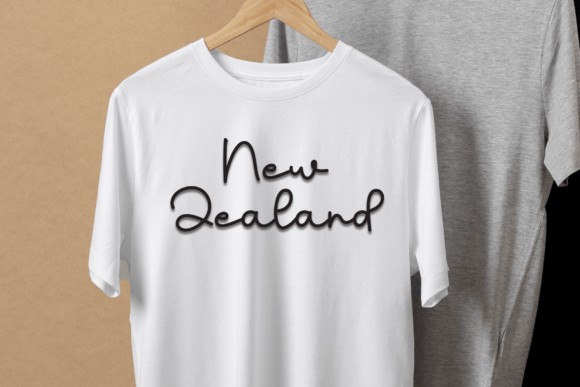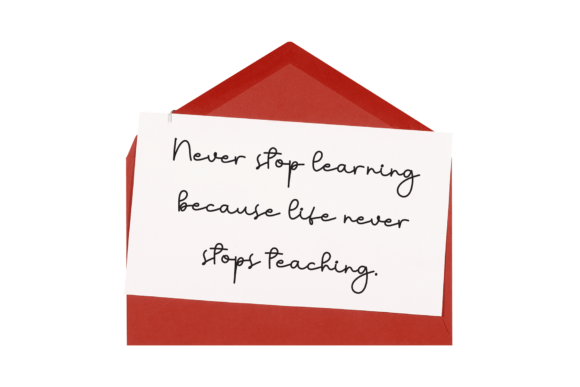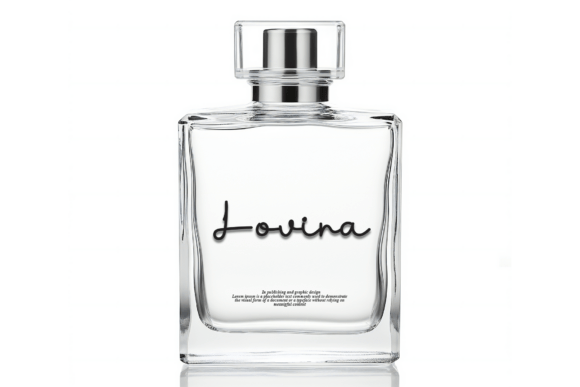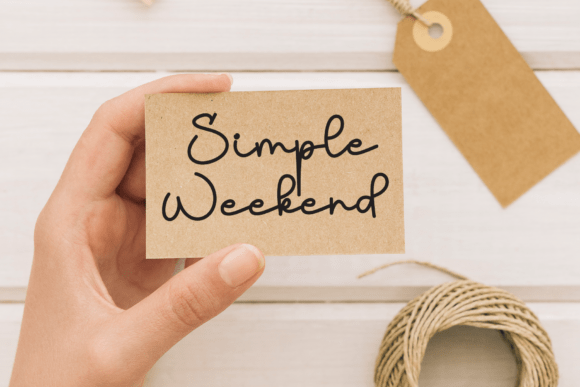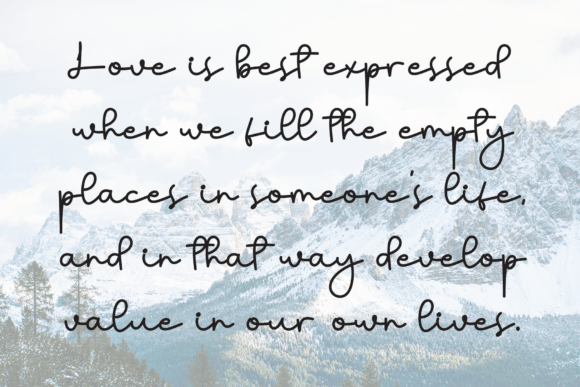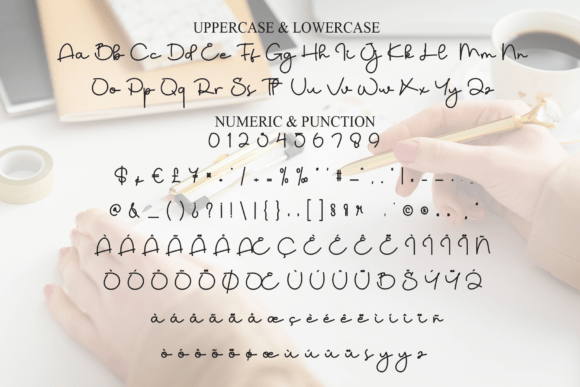
Introducing Charming Signature: The Perfect Font for Adding a Touch of Personality
In the world of typography, a font can make all the difference in conveying a message, expressing a brand’s identity, or simply adding a personal touch to a design. If you’re looking for a font that exudes a sense of casual elegance and modern sophistication, look no further than Charming Signature. This smooth and stylish handwritten font is perfect for designers, crafters, and anyone looking to add a dash of personality to their creations.
What is Charming Signature?
Charming Signature is a beautifully crafted handwritten font that blends a casual script feel with a modern flair. Its smooth, flowing lines and curves create a sense of fluidity and movement, making it perfect for adding a touch of personality to a wide range of designs. Whether you’re working on a branding project, creating a logo, designing a greeting card, or simply writing a personal note, Charming Signature is the perfect choice.
Key Features of Charming Signature
- Smooth and stylish handwritten look: Charming Signature boasts a beautiful, handwritten look that’s perfect for adding a personal touch to your designs.
- Casual script feel: This font has a relaxed, casual feel that’s perfect for creating a sense of friendliness and approachability.
- Modern flair: Charming Signature also has a modern edge, making it perfect for designers who want to create a sense of sophistication and elegance.
- Professional finesse: Despite its casual feel, Charming Signature has a level of professionalism that’s perfect for use in branding, logos, and other high-end designs.
Uses for Charming Signature
So, what can you use Charming Signature for? The possibilities are endless! Here are a few ideas to get you started:
- Branding and logos: Add a touch of personality to your brand’s identity with Charming Signature.
- Greeting cards and invitations: Create beautiful, one-of-a-kind greeting cards and invitations that will make your recipients feel special.
- Personal notes and letters: Add a touch of elegance to your personal correspondence with Charming Signature.
- Stationery and paper crafts: Use Charming Signature to create beautiful stationery, paper crafts, and other DIY projects.
Why Choose Charming Signature?
So, why should you choose Charming Signature over other fonts? Here are a few reasons:
- Unique and versatile: Charming Signature is a unique and versatile font that can be used in a wide range of designs and applications.
- Elegant and sophisticated: This font has an elegant, sophisticated feel that’s perfect for designers who want to create a sense of luxury and refinement.
- Easy to read: Despite its cursive feel, Charming Signature is easy to read, making it perfect for use in body text and other applications where legibility is key.
In conclusion, Charming Signature is a beautiful, stylish handwritten font that’s perfect for adding a touch of personality to your designs. With its smooth, flowing lines and curves, casual script feel, and modern flair, this font is sure to become a favorite among designers, crafters, and anyone looking to create something special. So why wait? Try Charming Signature today and see the difference it can make in your designs!